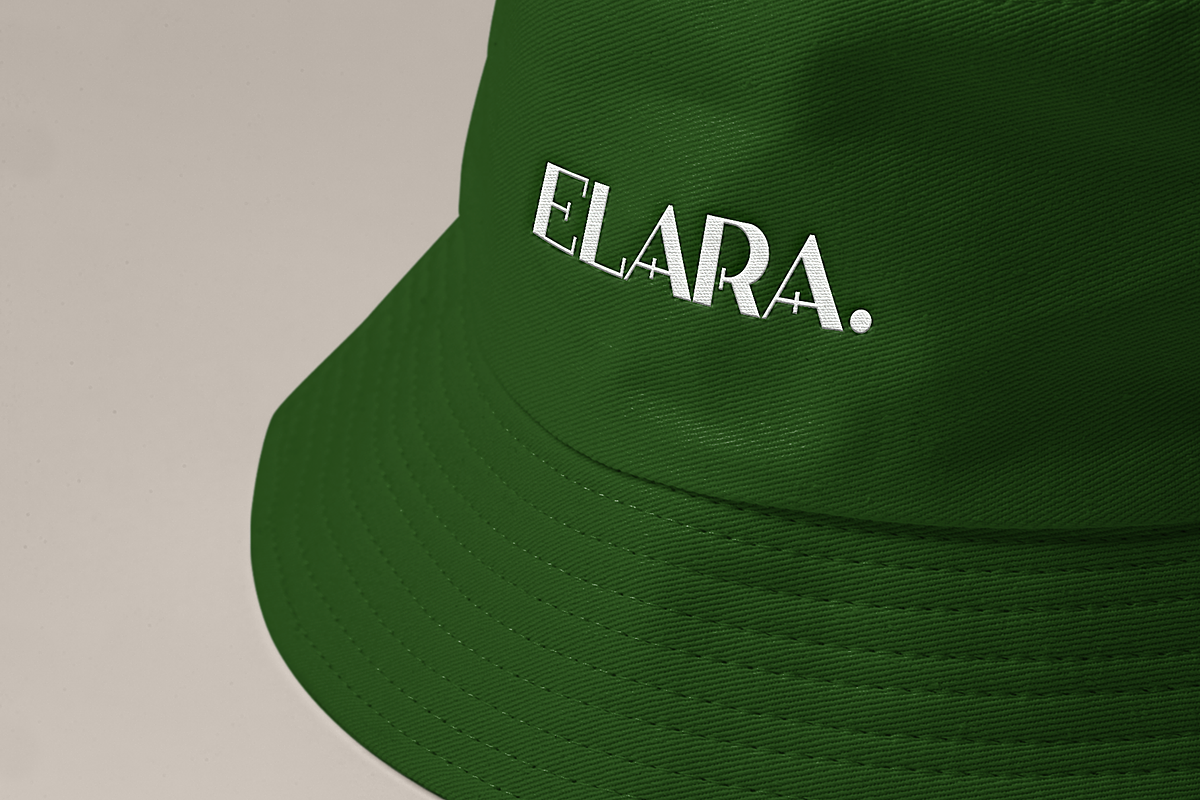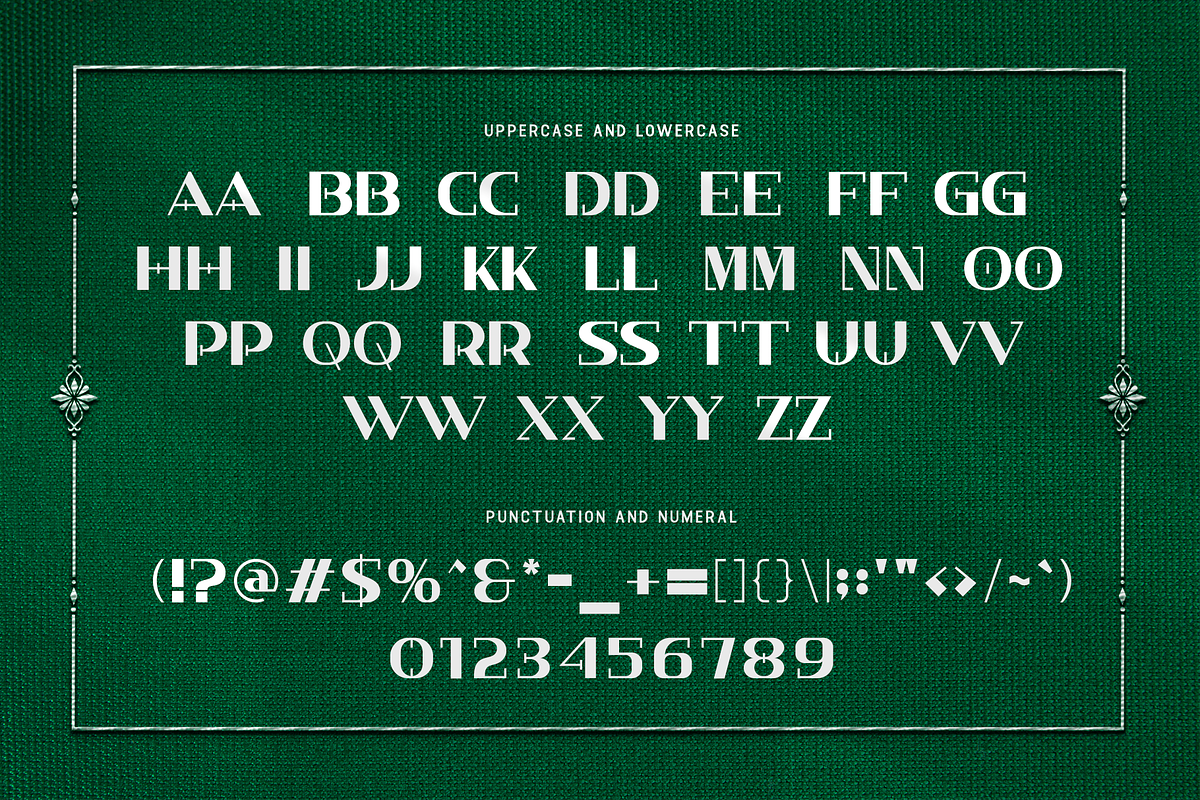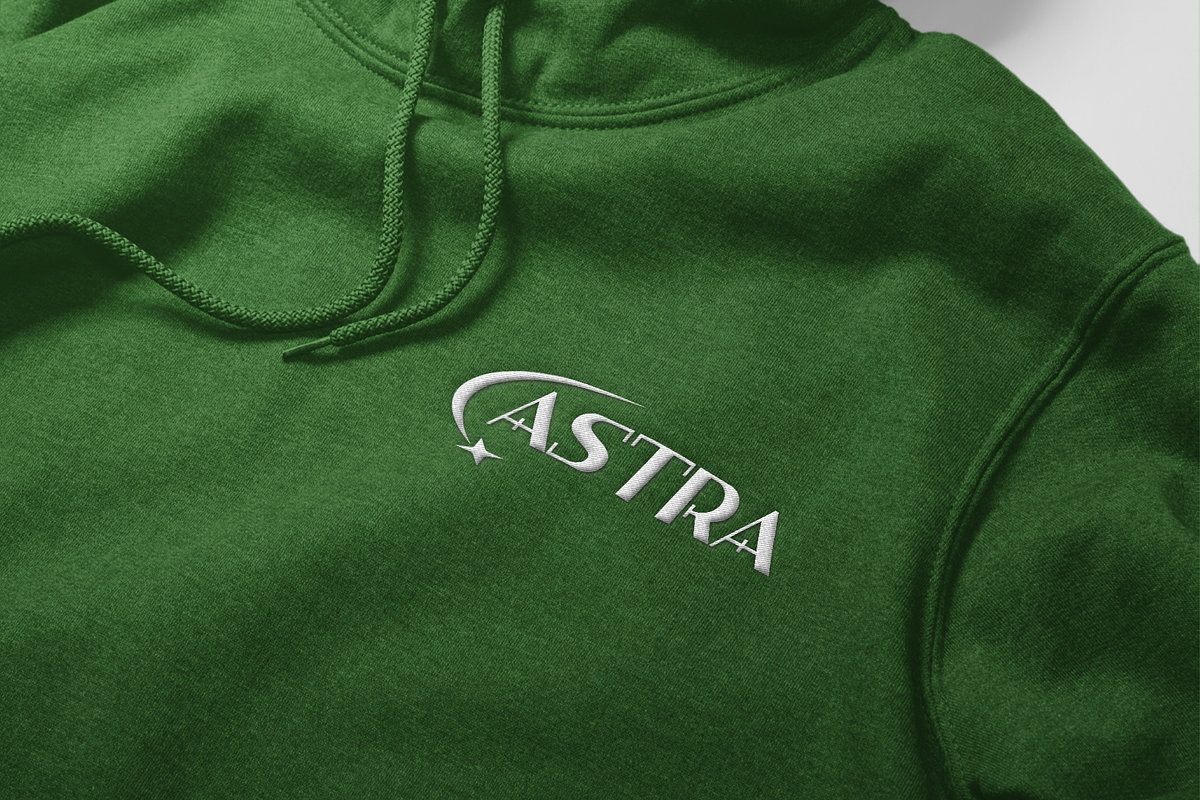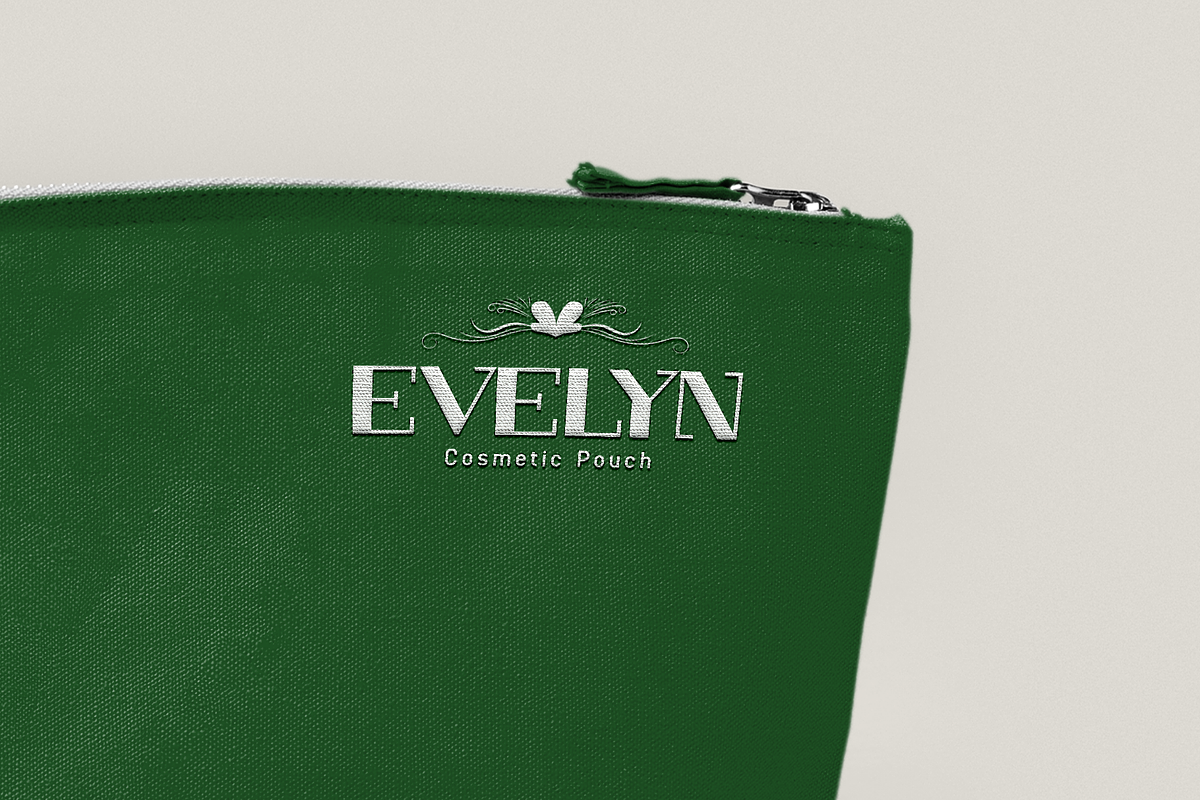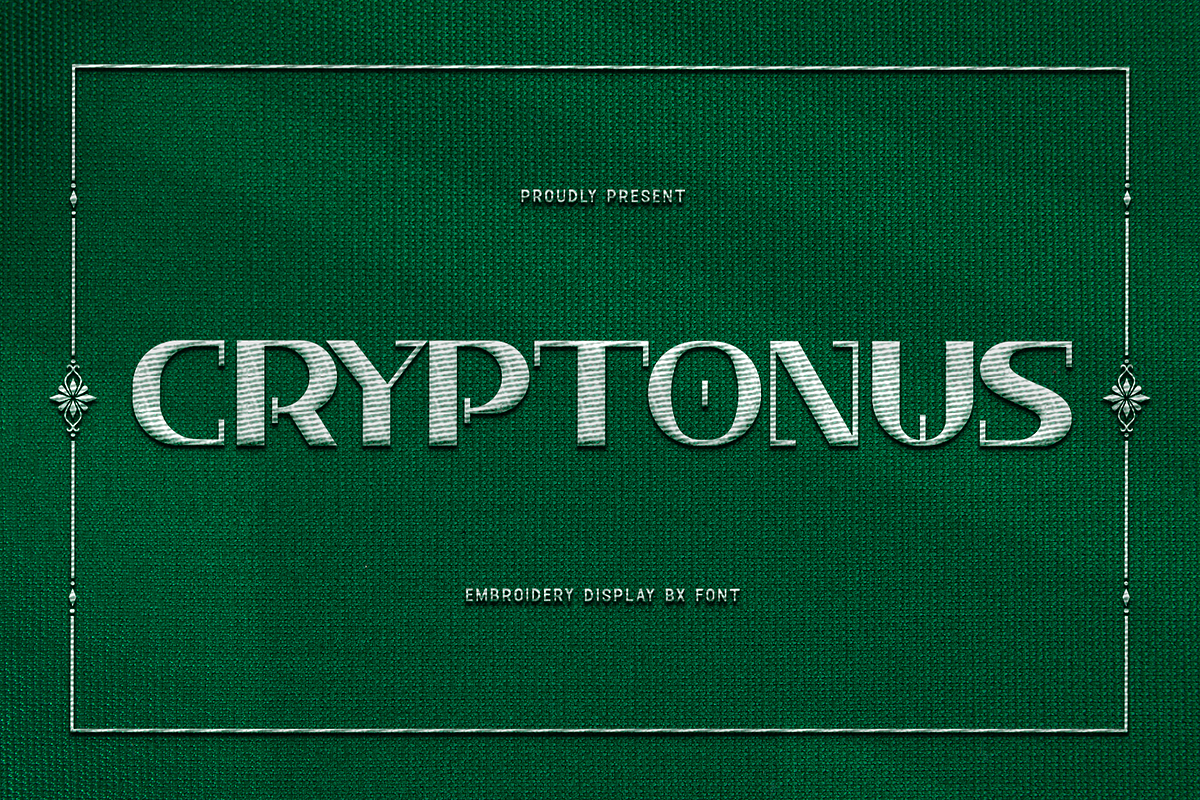
Cryptonus-Embroidery Display BX Font
Cryptonus - Embroidery Display BX Font
Introducing "Cryptonus," an embroidery display BX font that merges the boldness of modern typography with the intricate detail of embroidery. Perfect for designers and crafters seeking to create eye-catching and unique projects, Cryptonus brings a fresh, textured aesthetic to your creative toolbox.
Carefully designed to mimic the depth and texture of hand-embroidered letters, Cryptonus is ideal for a range of applications including apparel design, logos, posters, and home decor. Each character in Cryptonus features precise stitching details that add a touch of craftsmanship and sophistication to your work.
The "Cryptonus" font includes a complete set of uppercase and lowercase letters, numbers, and punctuation marks, providing the versatility and flexibility needed for various design needs. Whether you're looking to create a standout logo or add decorative flair to a project, Cryptonus delivers bold, stitched elegance.
Elevate your designs with Cryptonus, an embroidery display BX font that blends modern style with traditional craft.